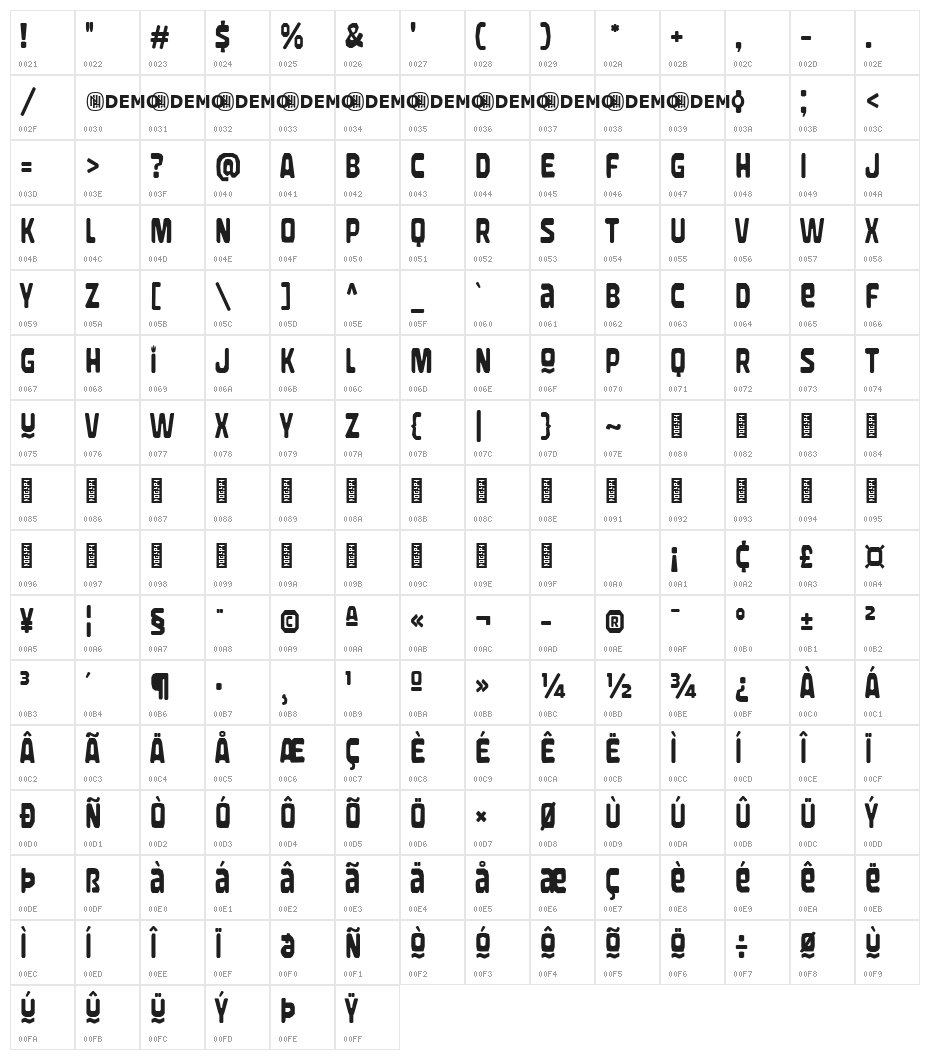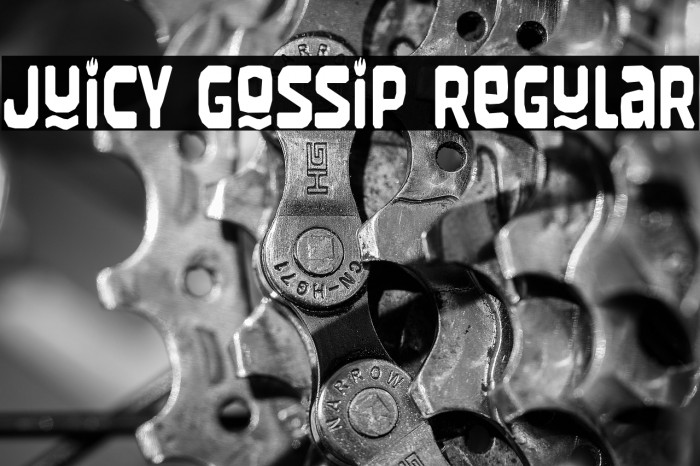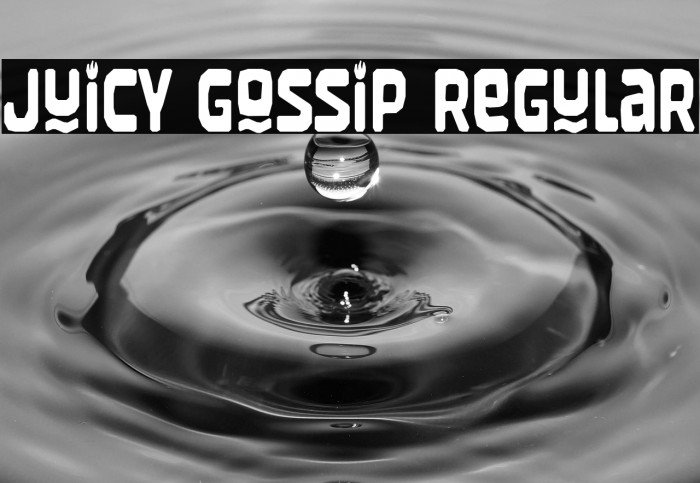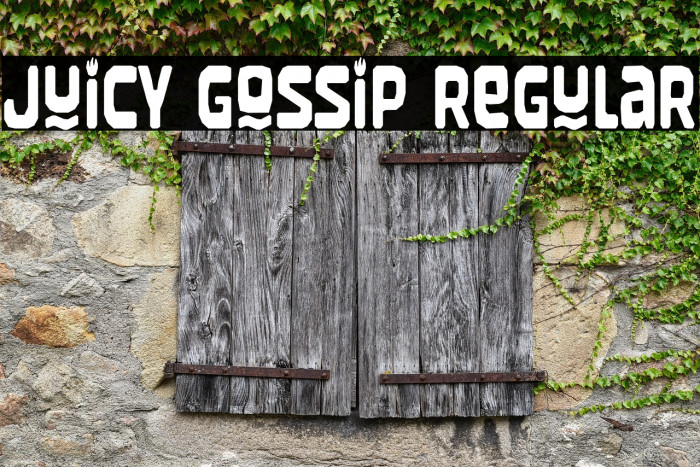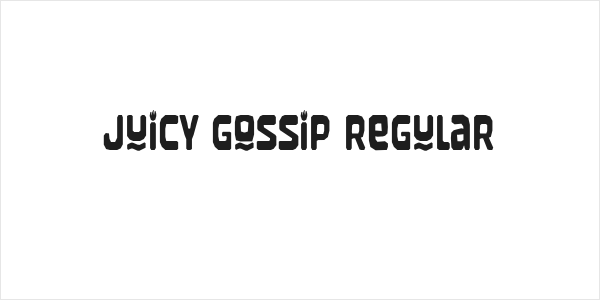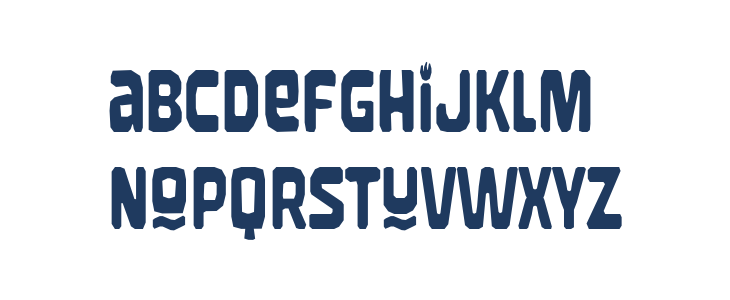
Juicy Gossip Regular Font
Juicy Gossip Regular Description
This font features a bold and playful design with a distinctively chunky appearance. The characters are crafted with a unique geometric style, incorporating sharp angles and rounded edges that create a dynamic and engaging look. The uppercase and lowercase letters maintain a consistent weight, contributing to a cohesive visual impact. The font includes a full set of numerals and a variety of special characters, each designed to complement the overall aesthetic. Its bold presence makes it ideal for eye-catching headlines and creative projects.
| Proposed Projects | Perfect for posters, branding, packaging, and any design needing a bold, playful touch. |